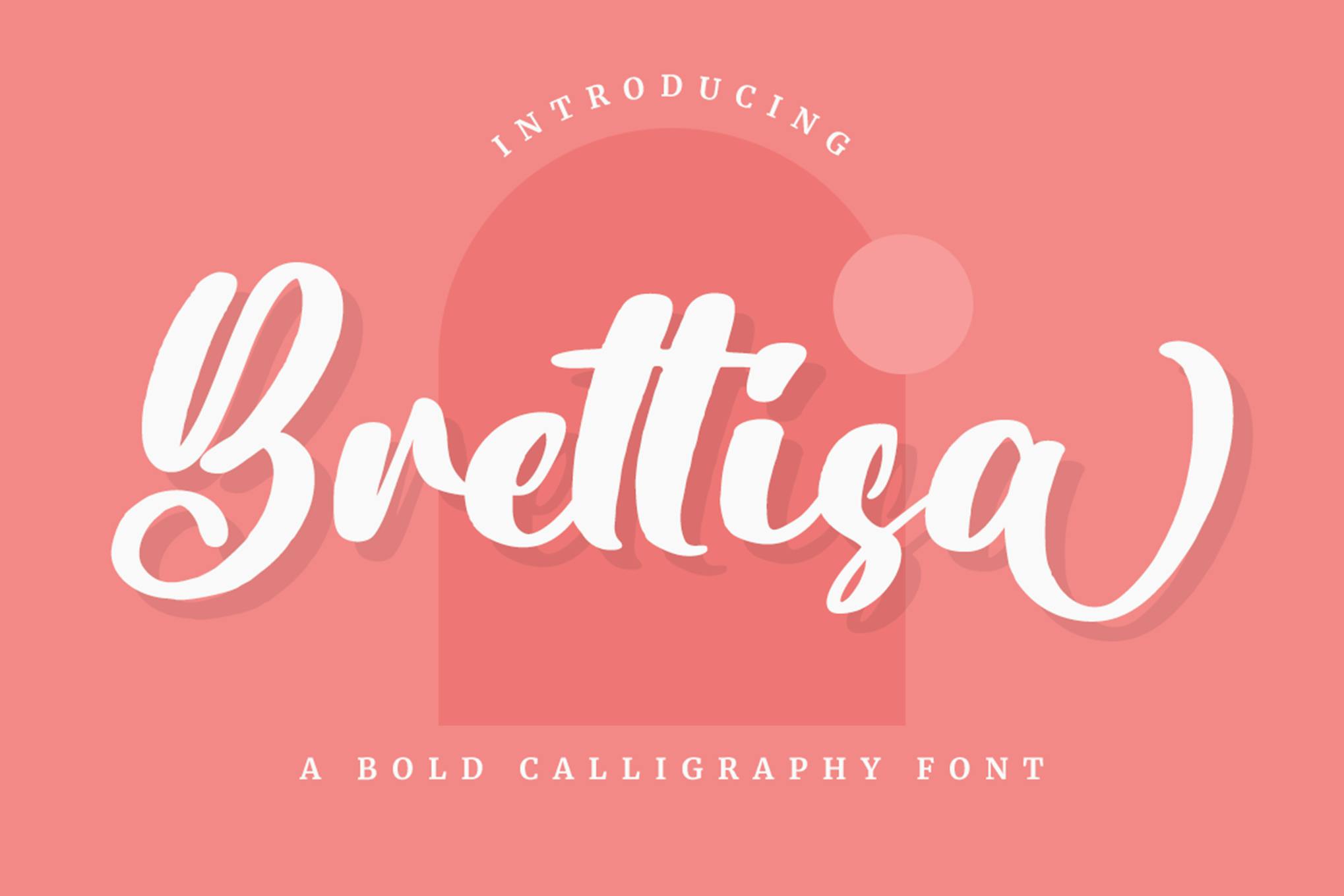
Brettisa - Wedding Font
The Brettisa - Wedding Font excels in elegant design applications including graceful wedding invitations, elegant bridal branding, sophisticated ceremony logos, refined product packaging, graceful business cards, elegant portfolios, sophisticated greeting cards, graceful social media graphics, elegant event signage, and refined marketing materials. Its elegant script style makes it perfect for projects requiring graceful sophistication that communicates elegance and establishes refined brand positioning with audiences seeking elegant wedding experiences and graceful sophistication.
What makes the Brettisa - Wedding Font truly exciting is its exceptional ability to capture the elegant grace and sophisticated beauty of refined weddings through gracefully crafted letterforms. The font features flowing, elegant strokes with graceful flourishes and sophisticated proportions that create a distinctly refined appearance. Each character displays remarkable attention to elegant detail with graceful curves, sophisticated connections, and elegant spacing that give text a beautifully graceful, hand-lettered quality. The font's elegant character and graceful rhythm create an atmosphere of sophisticated elegance while maintaining graceful refinement and wedding authenticity.
The Brettisa - Wedding Font family typically includes regular weight with extensive character coverage, featuring uppercase and lowercase letters, numerals, punctuation marks, and international characters. The typeface often incorporates stylistic alternates, contextual ligatures, and elegant swashes that enhance its signature grace. These additional elements provide designers with creative flexibility to customize text appearance and achieve more natural-looking graceful handwriting that reflects the font's elegant and sophisticated character.
This elegant signature font distinguishes itself through its remarkable balance of graceful charm and sophisticated presentation. Unlike harsh or ungraceful fonts that lack elegant appeal, Brettisa - Wedding Font embraces the power of graceful design to create sophisticated connections with elegant wedding audiences. The font's graceful character makes it essential for elegant wedding planners, sophisticated brands, and refined celebration businesses where creating graceful wedding experiences and elegant memories is fundamental to success in sophisticated wedding markets.